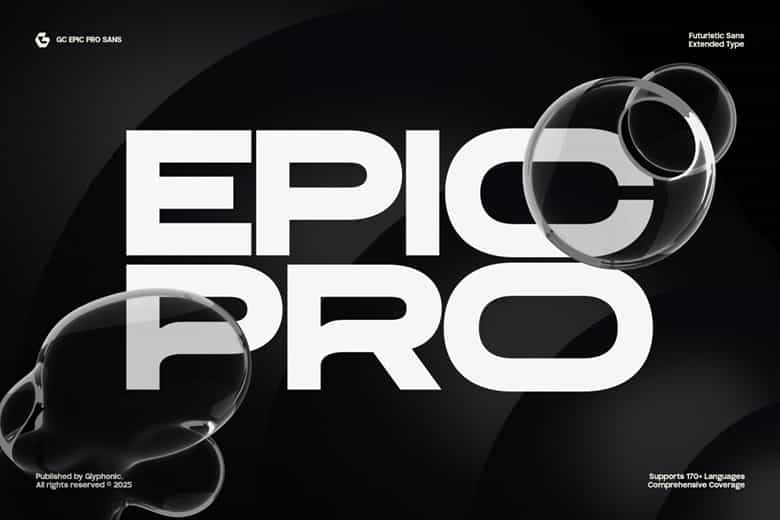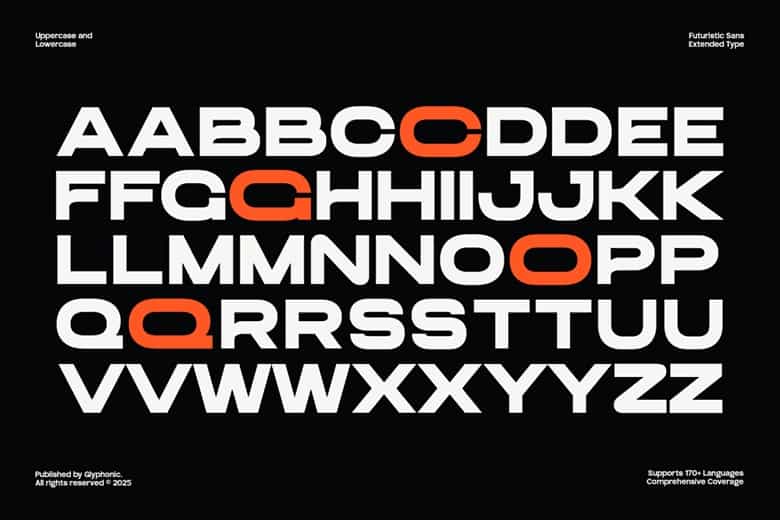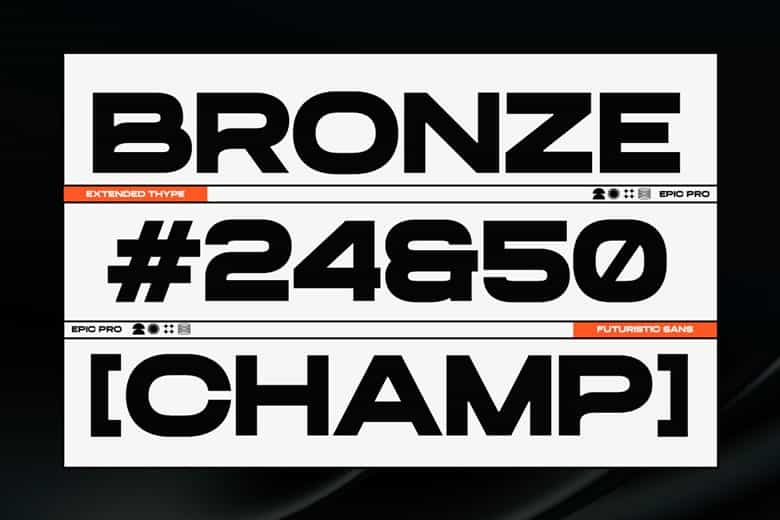
Gc Epicpro Font
Gc Epicpro is a super modern extended sans serif display font merging bold proportions and clean modern design. It has been designed to out-type headlines, power-charge technology branding, lift sports logos, pace editorial layouts and add power-tipped makeup to the work of any serious designer that requires clarity and impact. Every character is designed with a certain degree of confidence behind it: bold forms, pointed angles, and accurate geometry make it appear entirely frontal in its appearance.